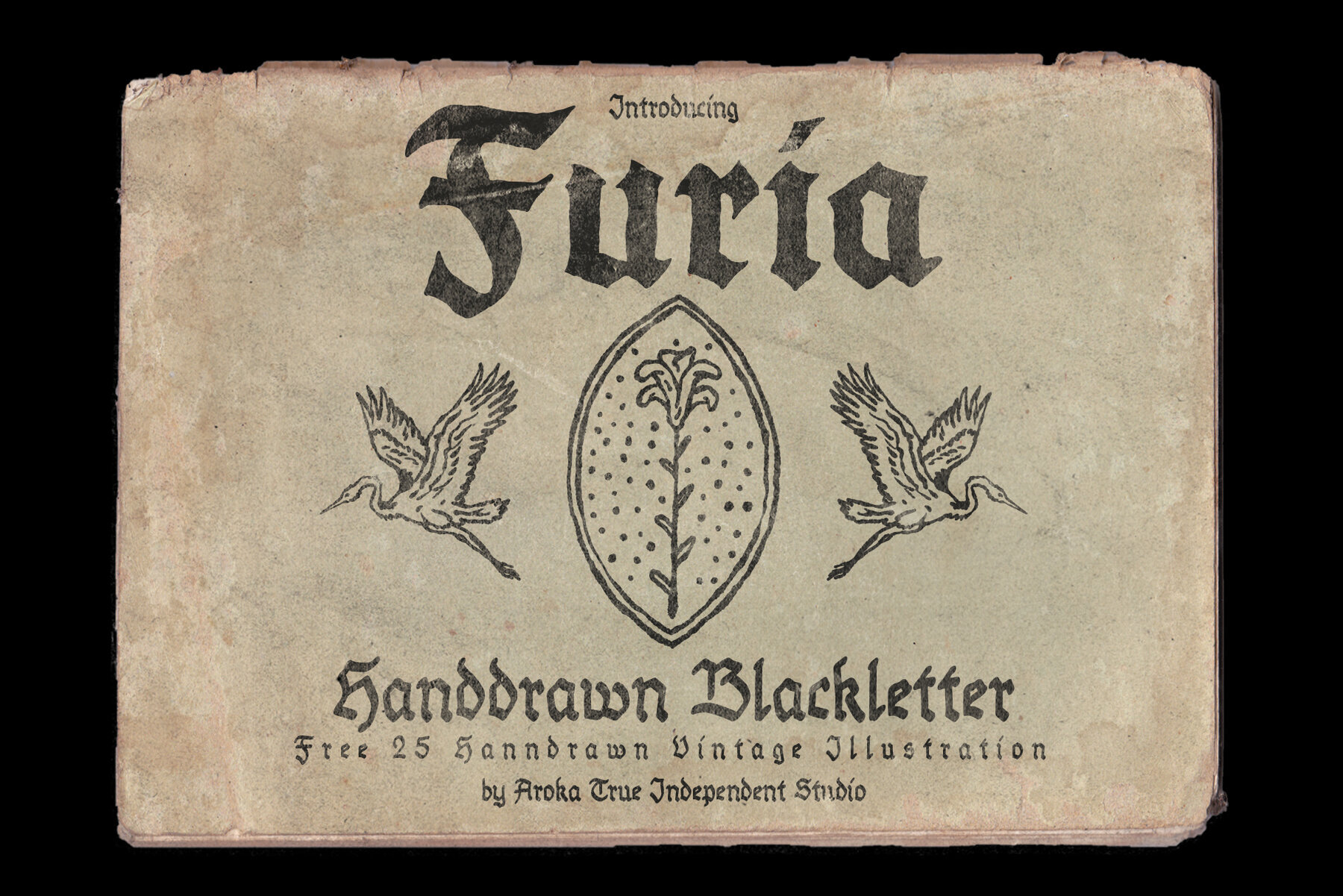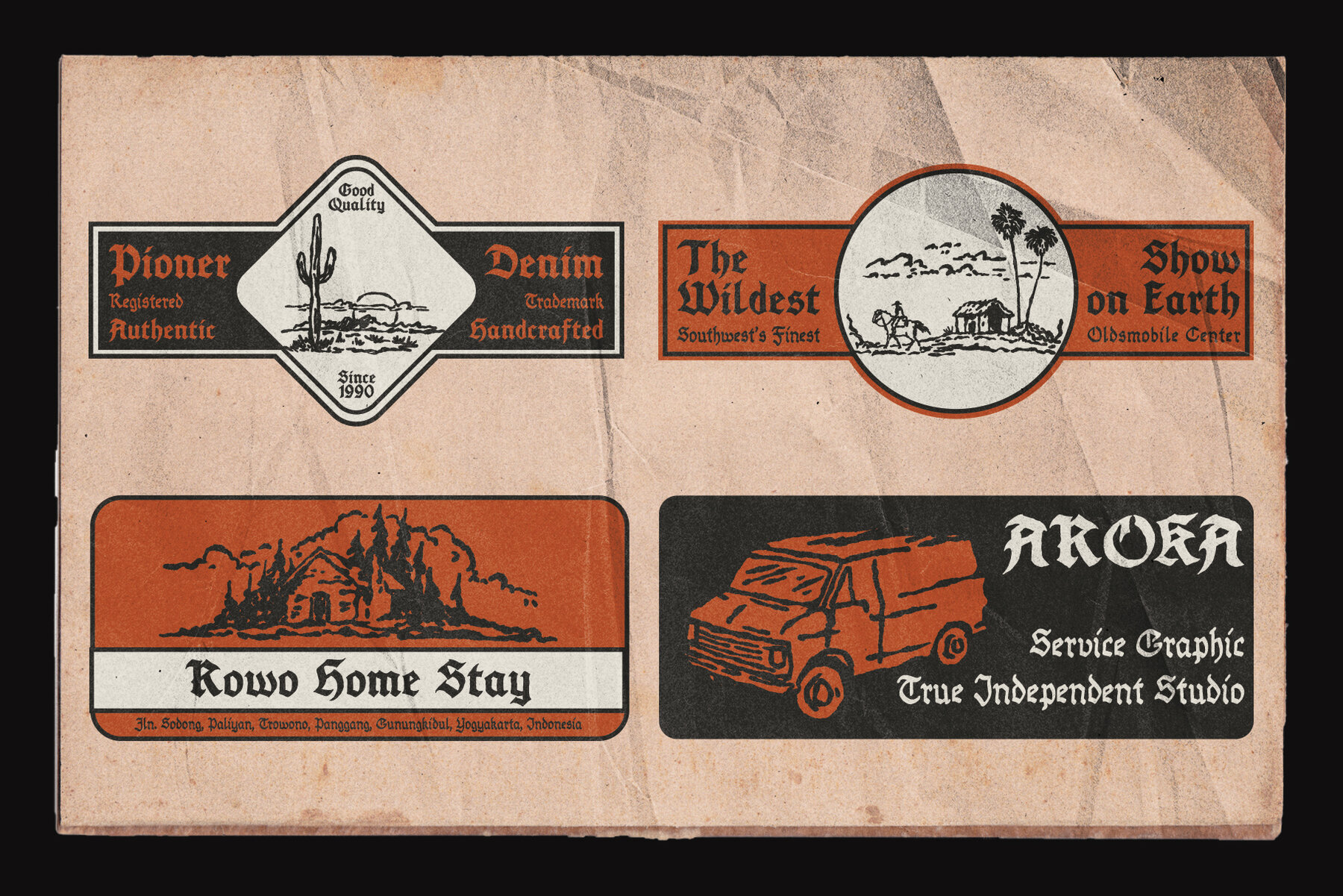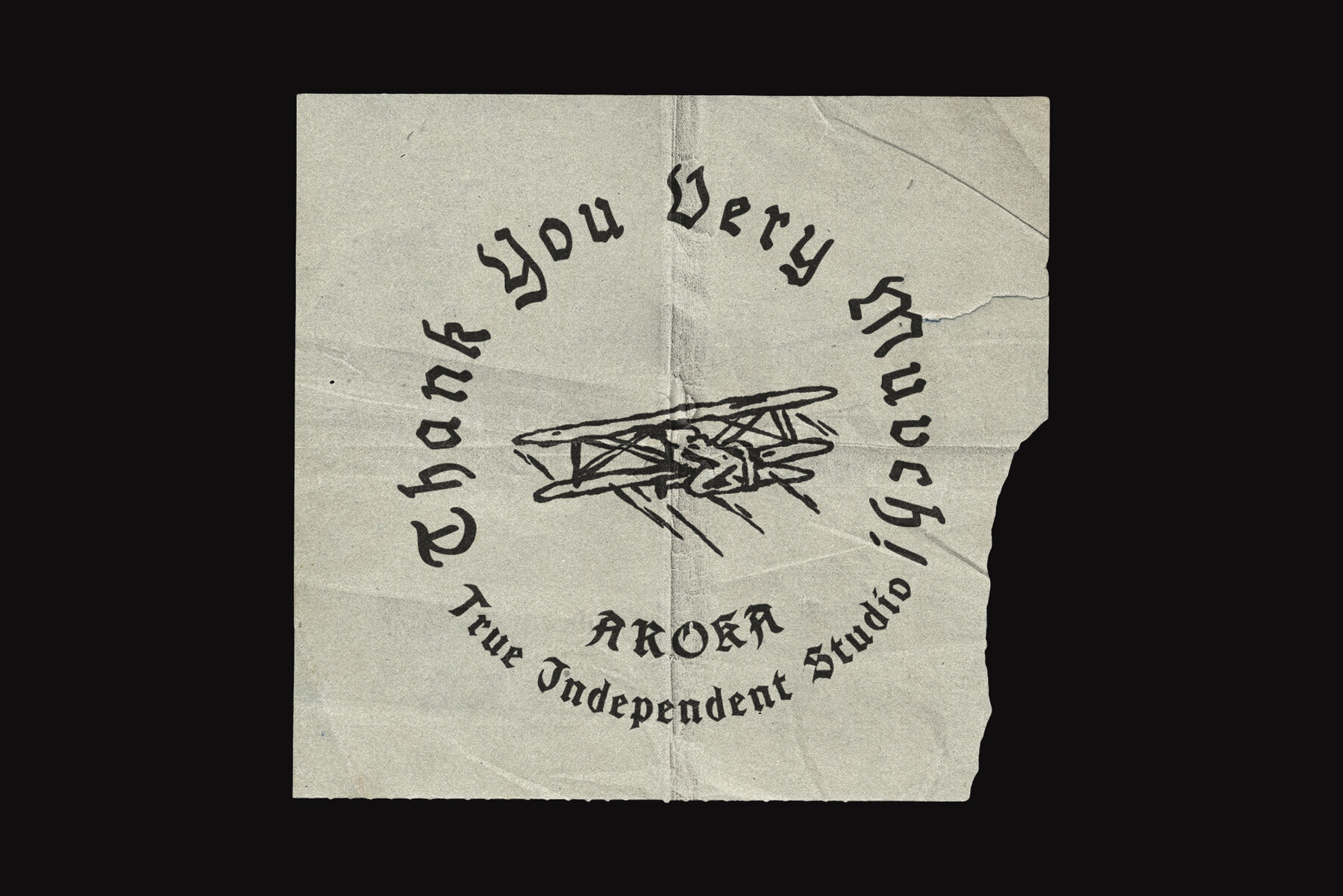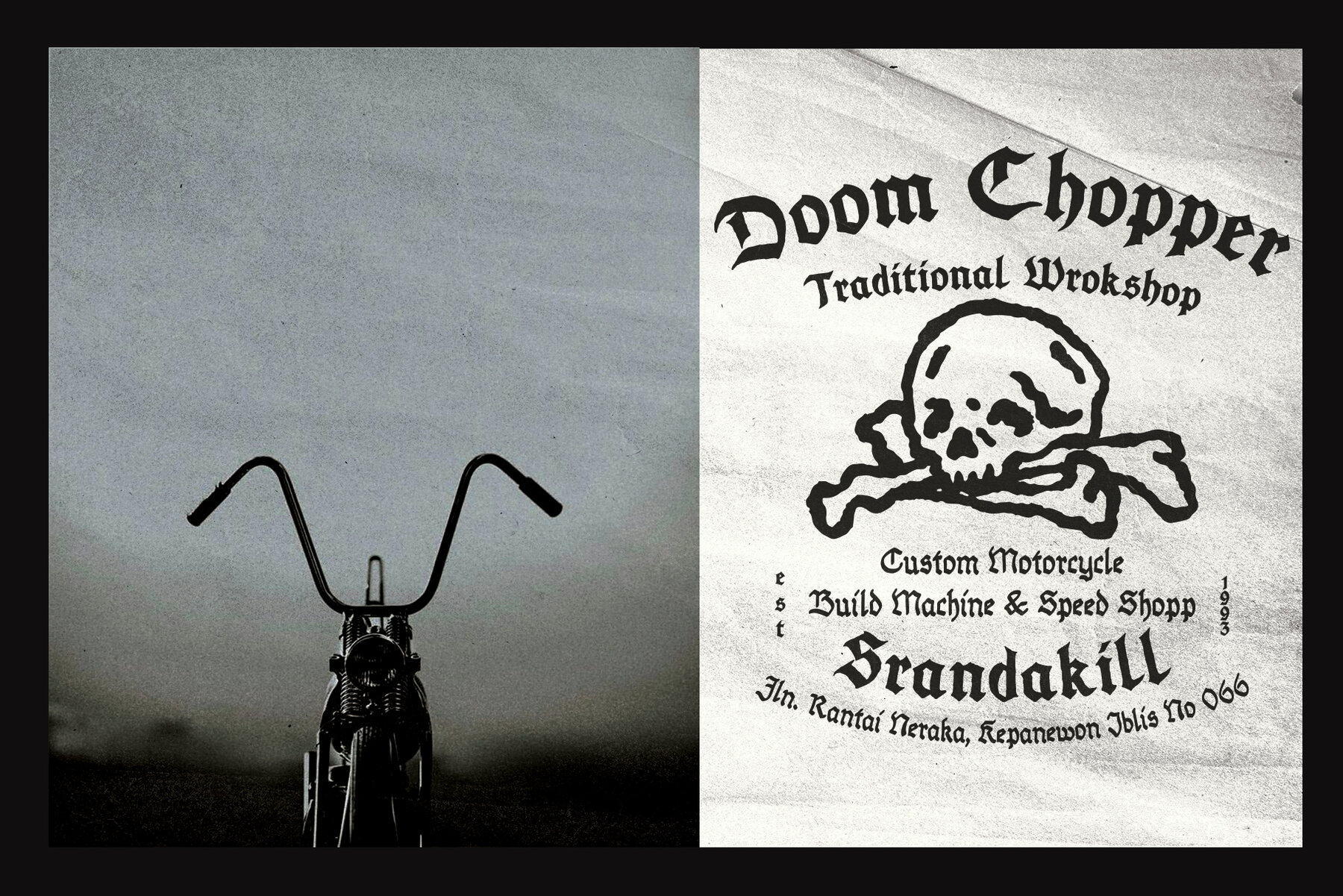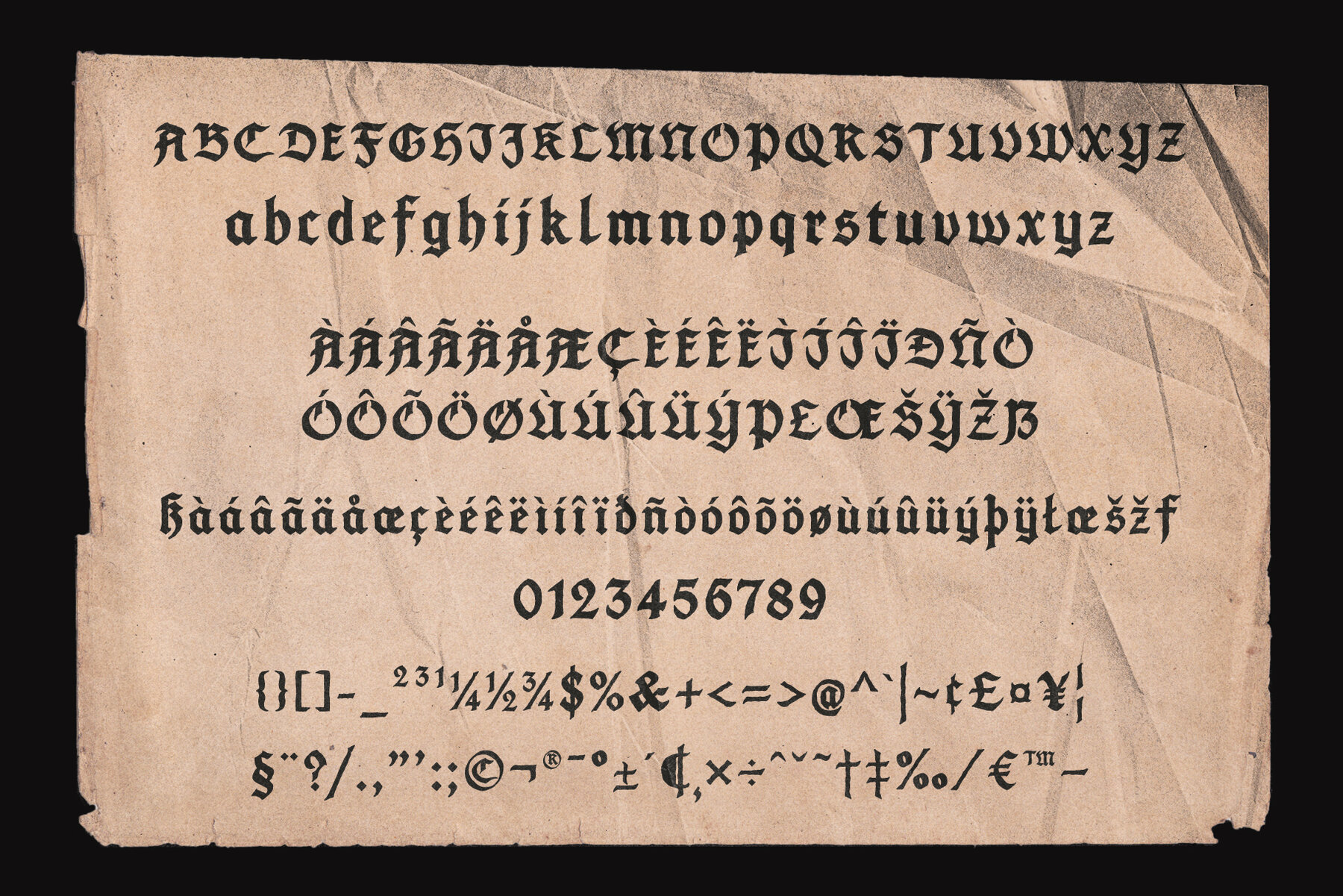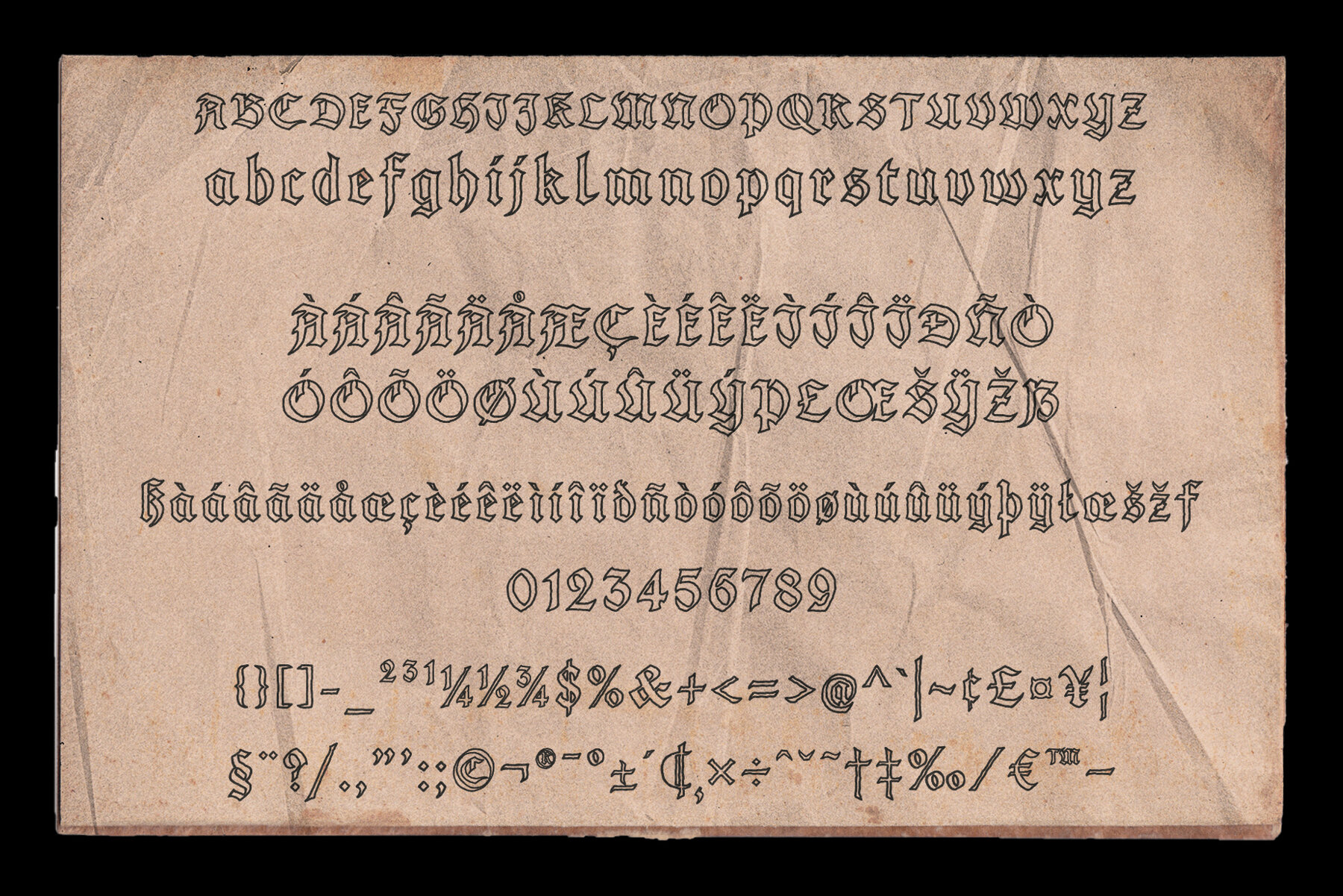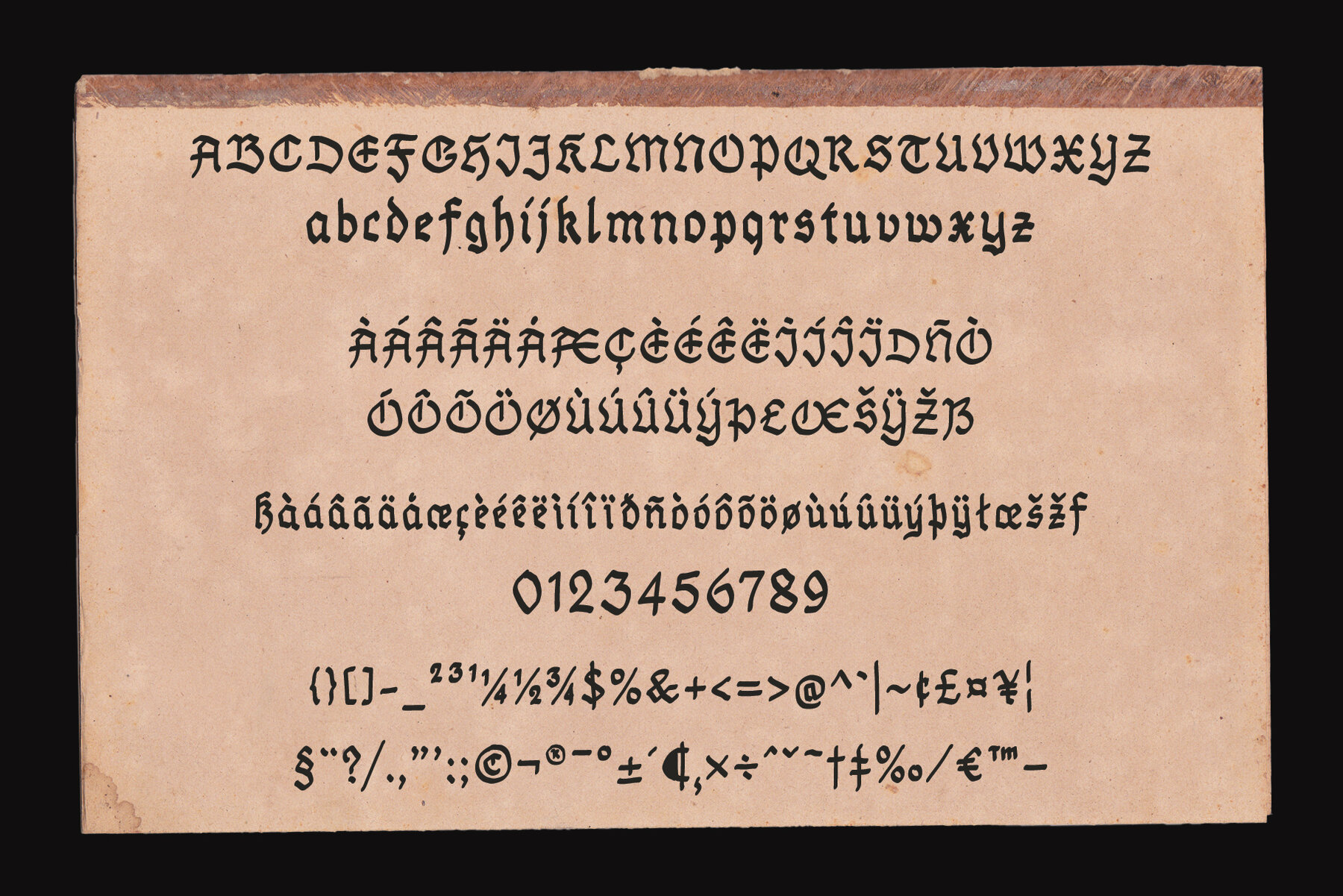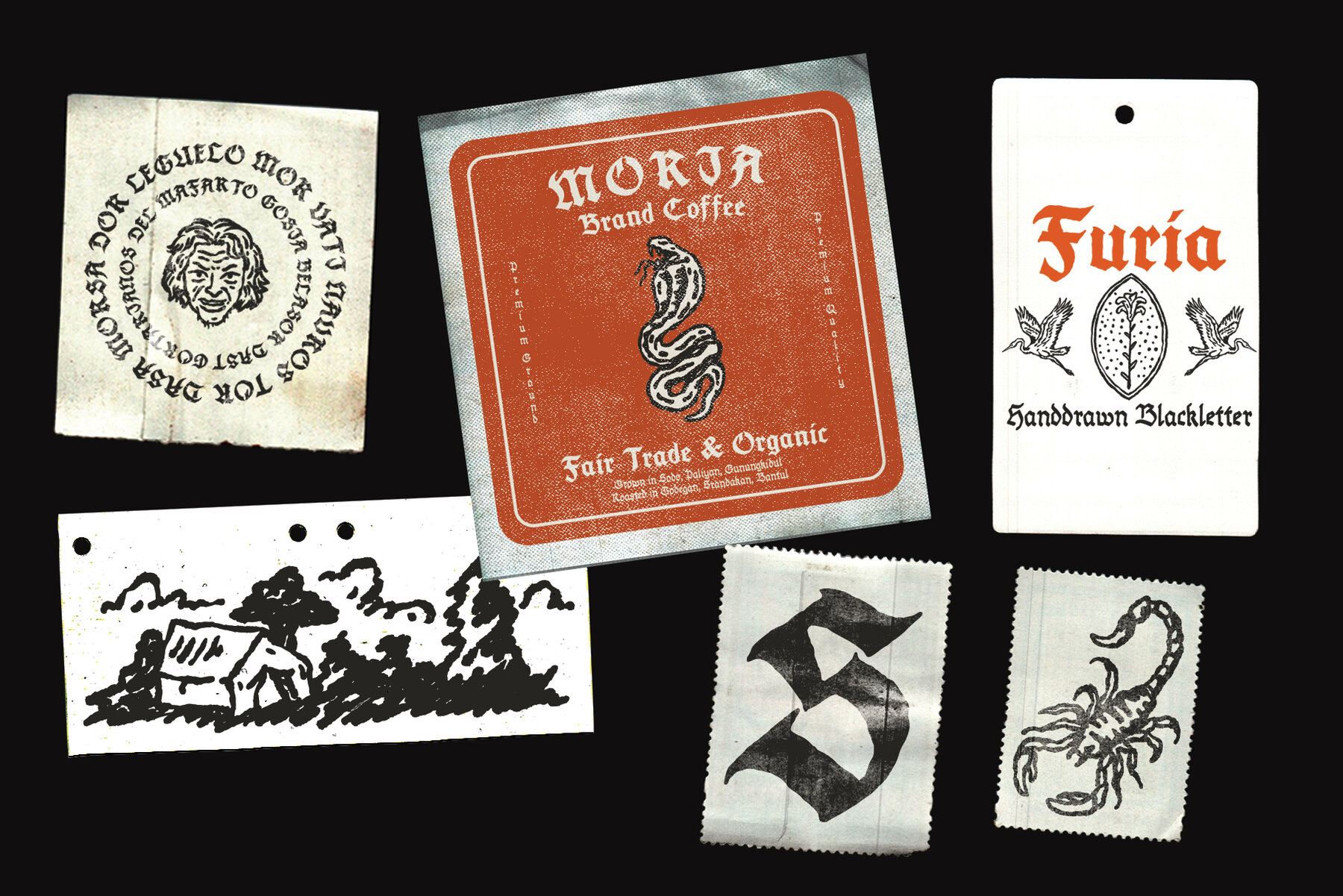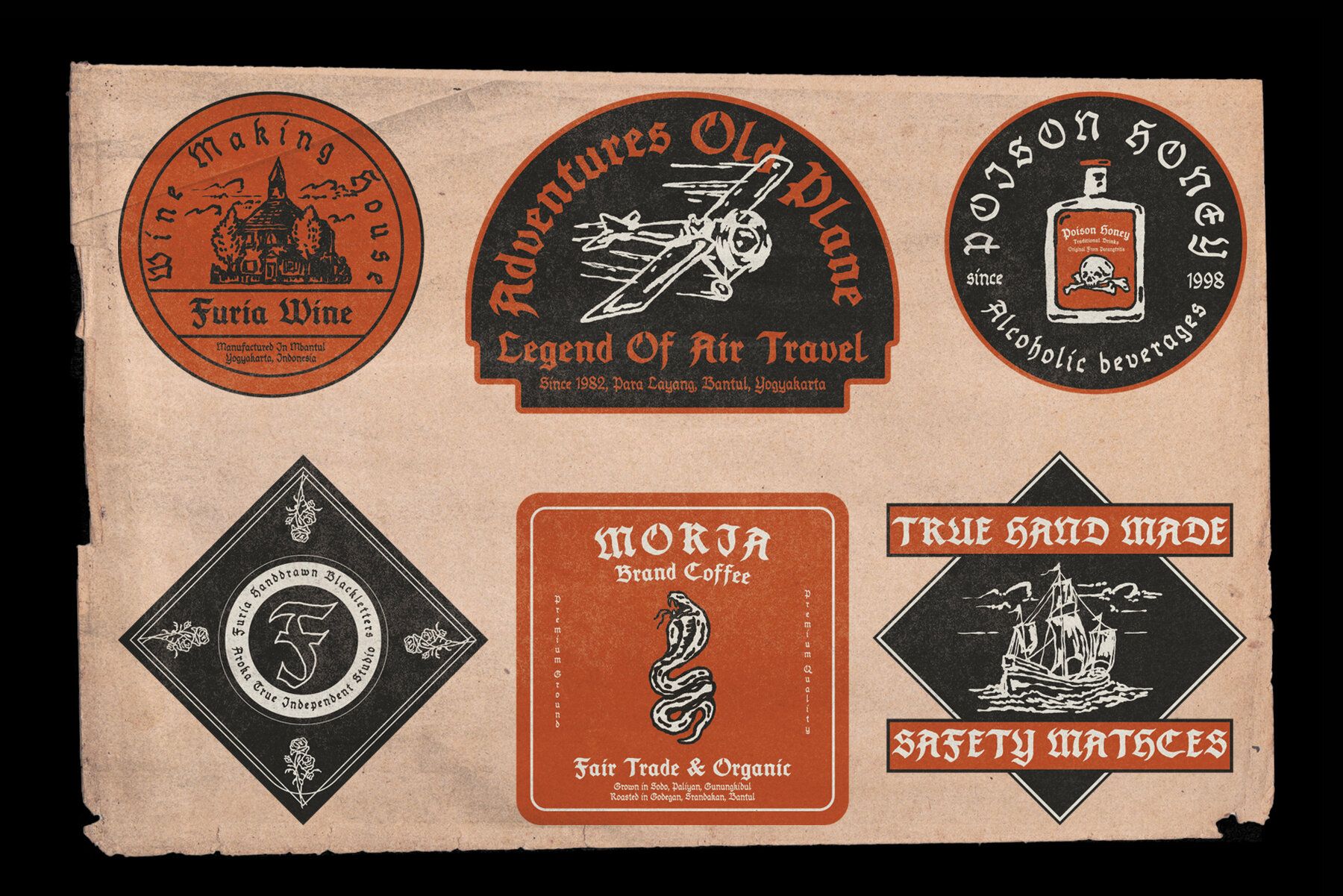
FURIA Font
FURIA offers a unique selection of hand-drawn black letters, designed to infuse your projects with creativity and flair. This collection provides three distinctive variations, enabling you to select the perfect match for your design needs.FURIA: Dynamic Hand-Drawn Typography